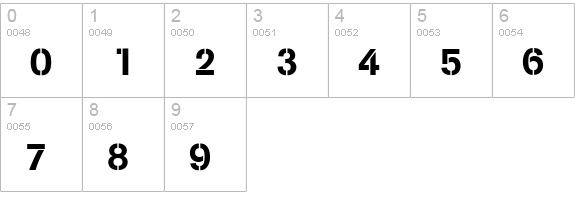
CargoD Font Details
Introducing CargoD Font, a versatile and modern typeface designed to make a bold statement in any design project. With its clean lines and distinctive style, CargoD Font exudes professionalism and creativity. Whether you're creating a logo, signage, or promotional materials, this font is sure to capture attention and leave a lasting impression. What sets CargoD Font apart is its unique blend of sleek elegance and bold personality, making it perfect for a wide range of applications. From branding to editorial design, this font adds a touch of sophistication and flair to any project. Best of all, CargoD Font is available for free download at FontsMarket.com. That's right - you can access this premium font at no cost, making it an excellent choice for designers on a budget or anyone looking to elevate their work with high-quality typography. Don't miss out on the opportunity to enhance your designs with the striking beauty of CargoD Font. Download it today and see the difference it can make in your projects!